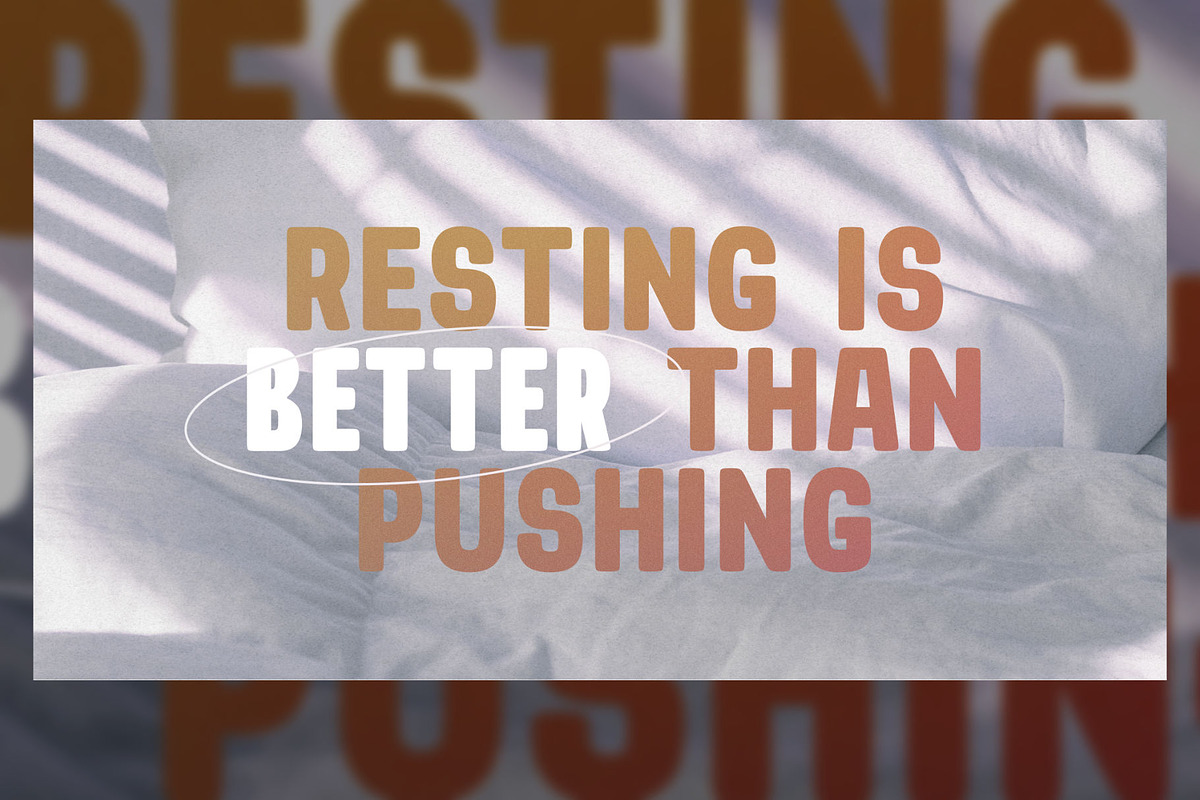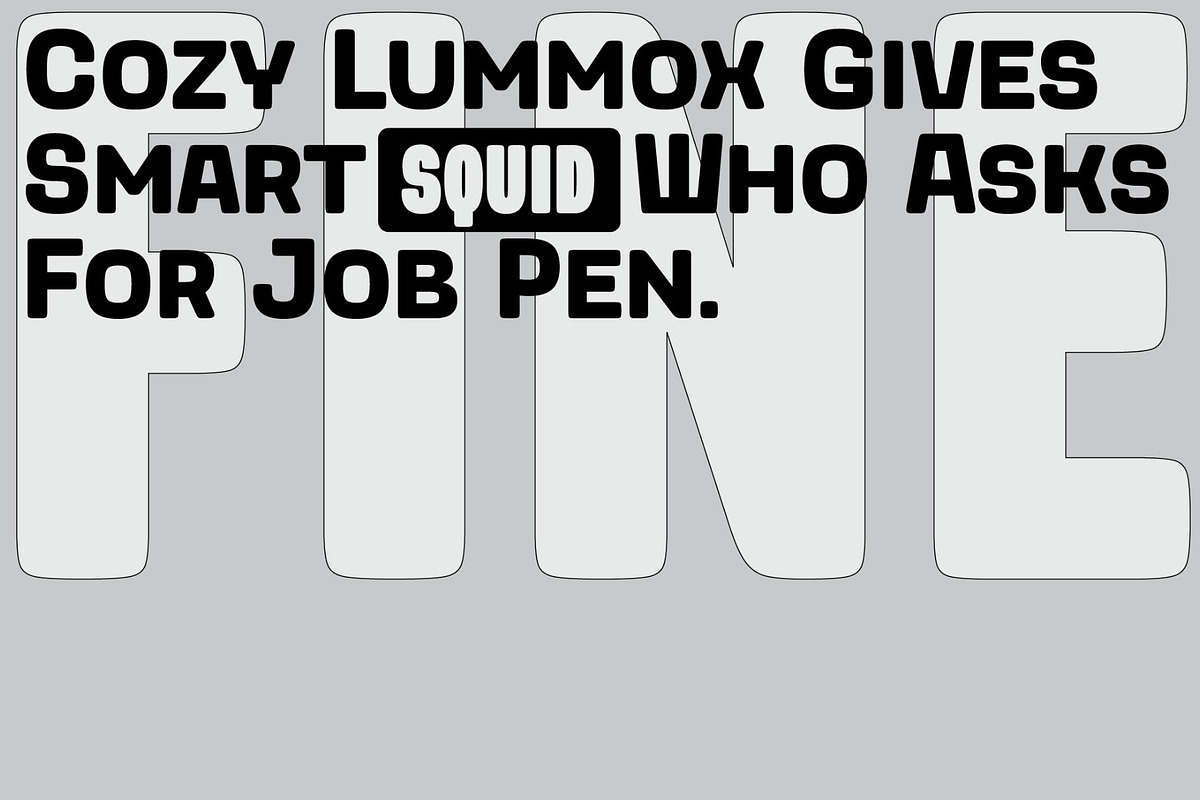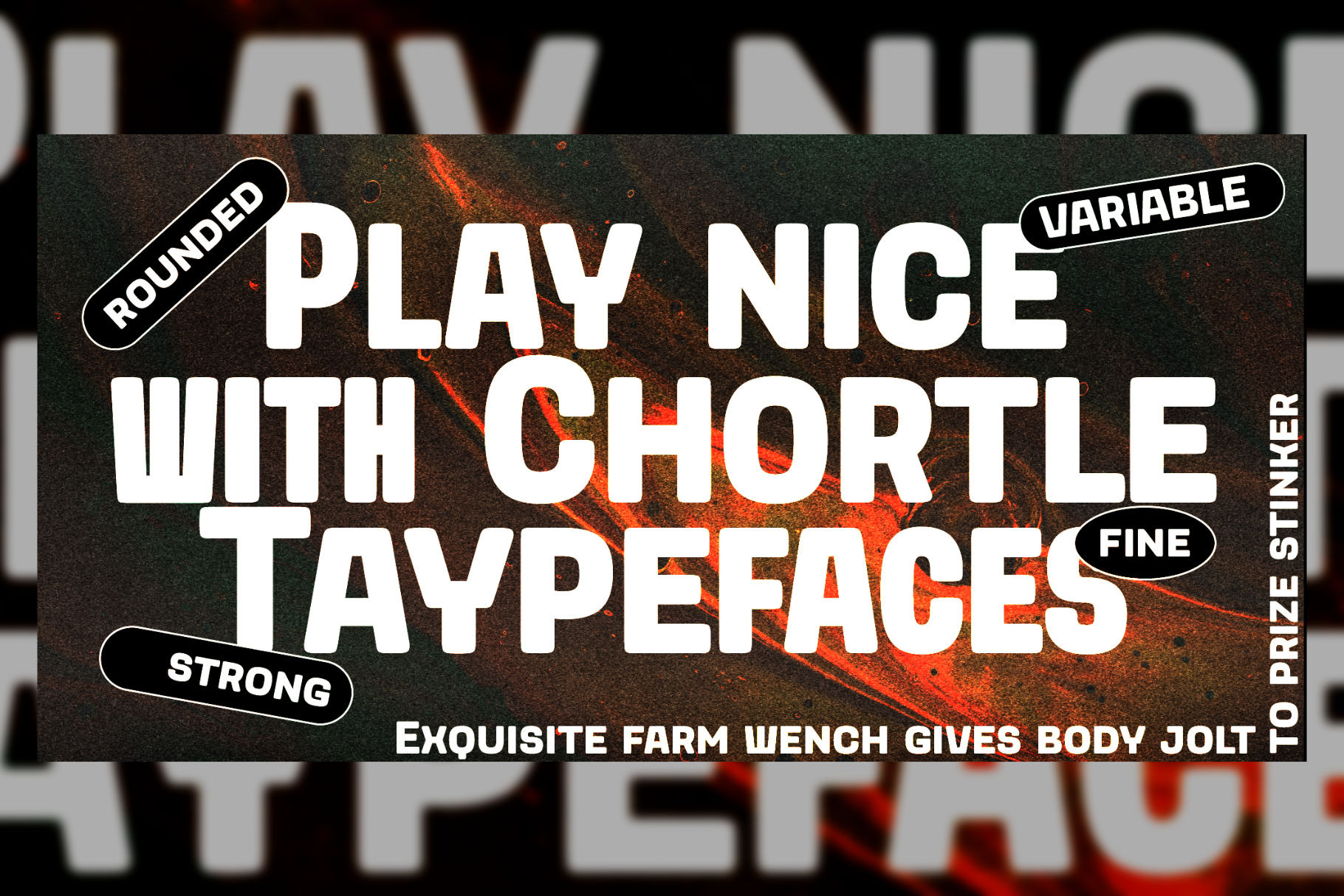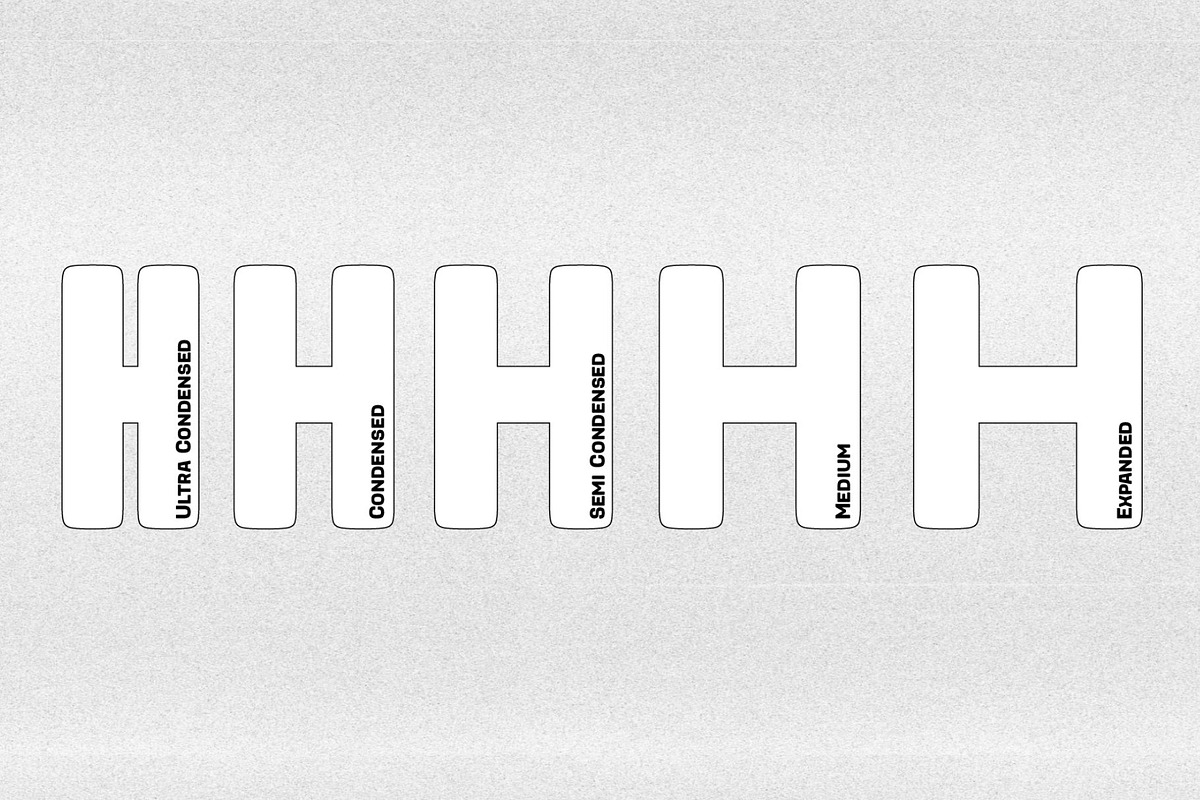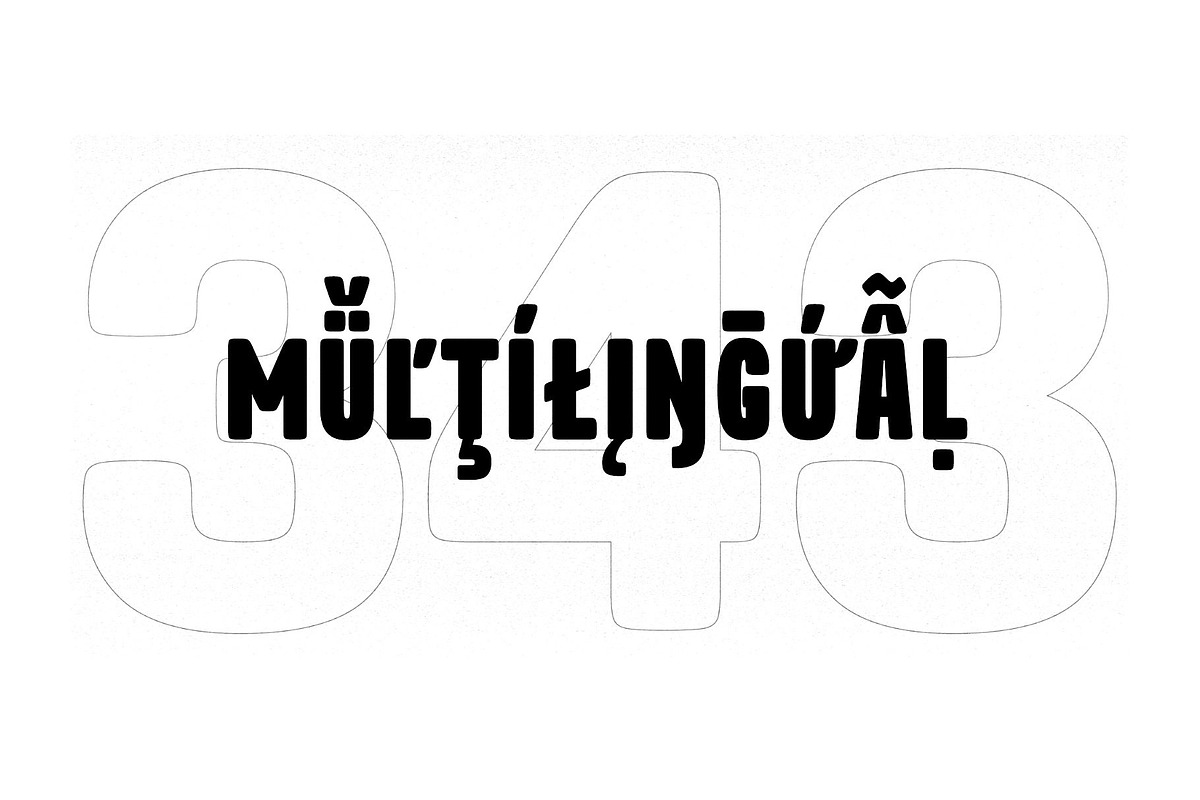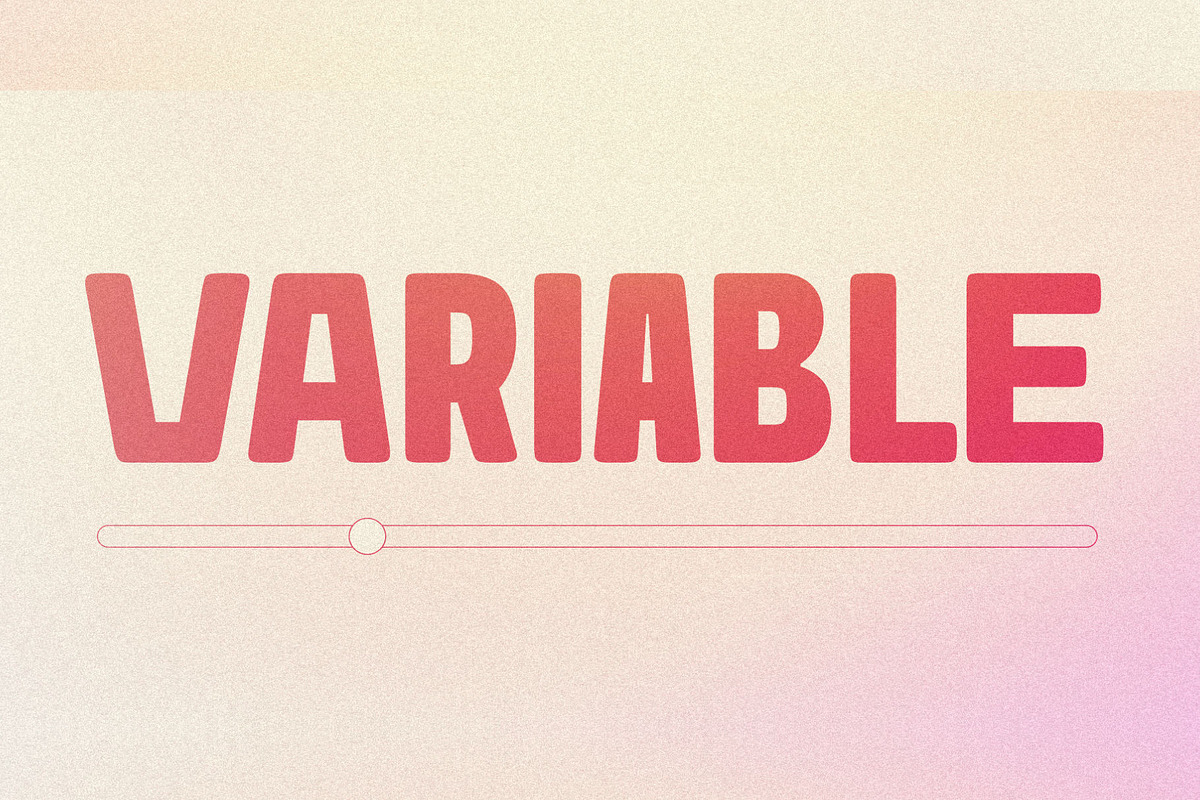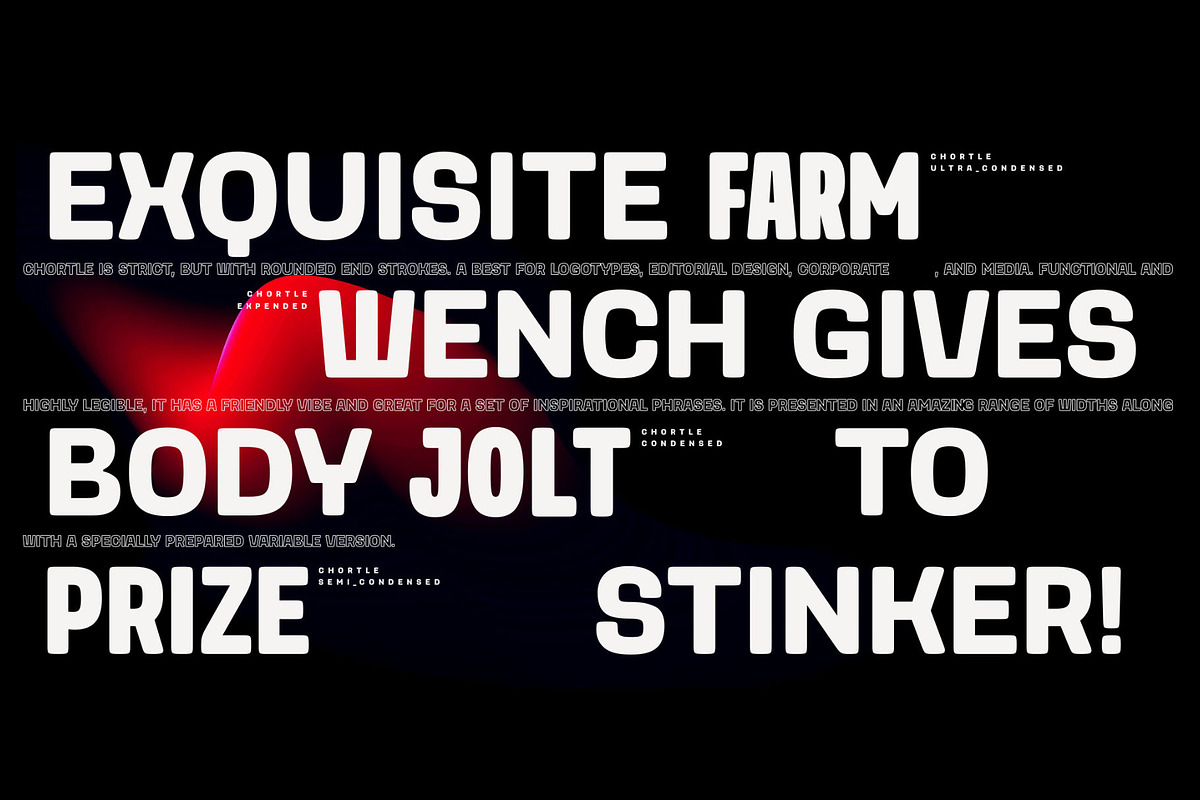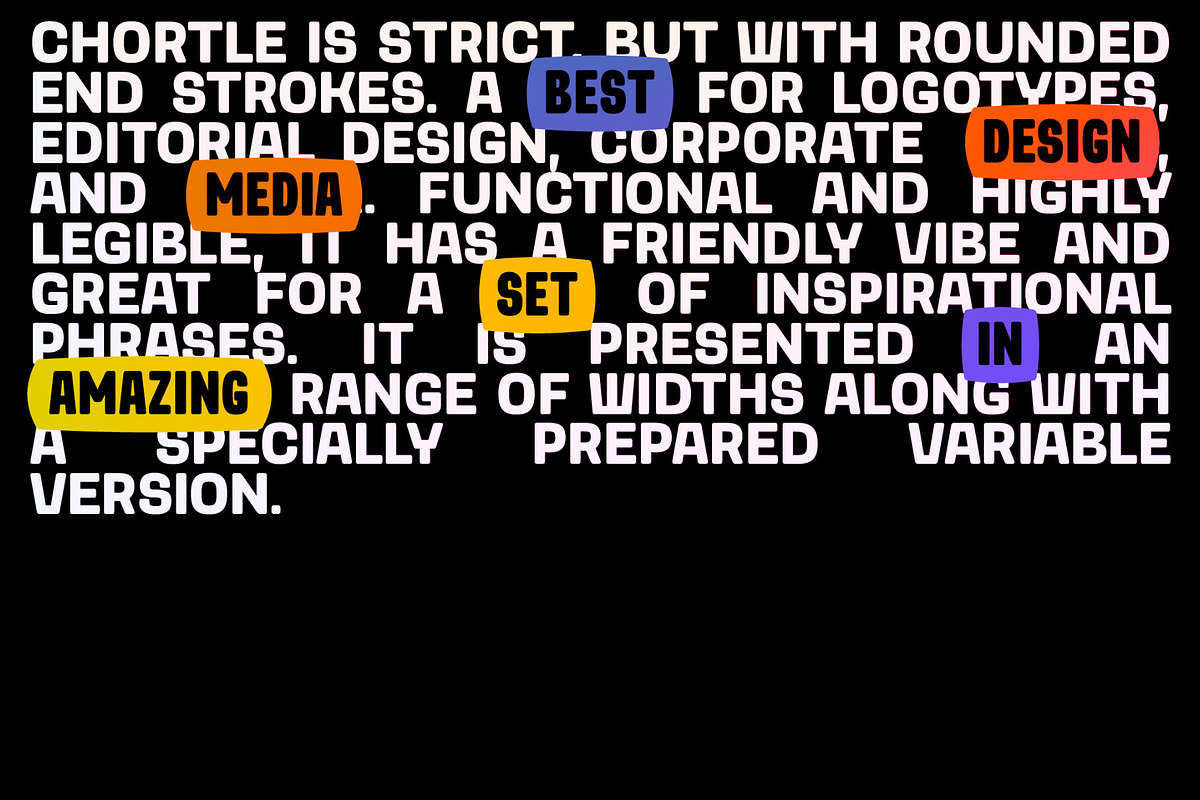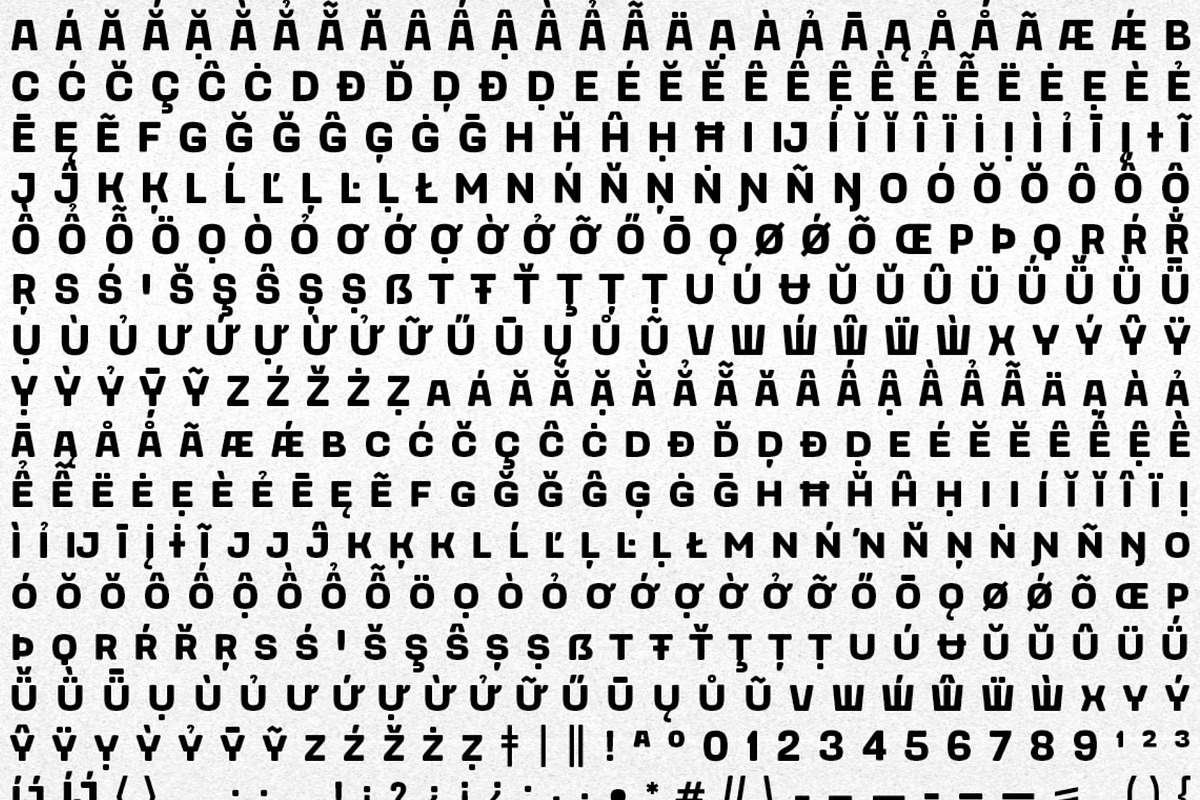
Chortler Display Font Family
Chortler is the typeface with strict lines and rounded end strokes, making it perfect for logotypes, editorial design, corporate design, and media.
This versatile typeface is also great for creating a set of inspirational phrases. It comes in an amazing range of widths, and there's even a specially prepared variable version available.